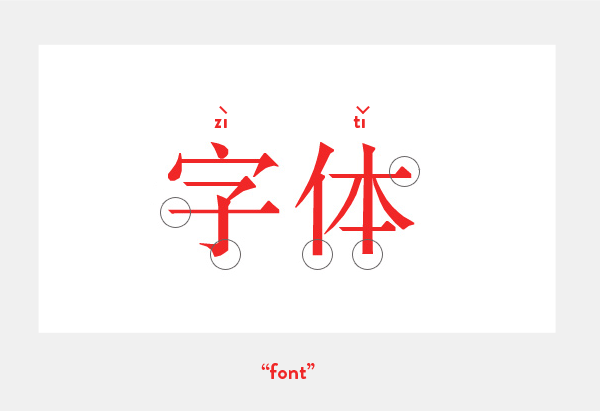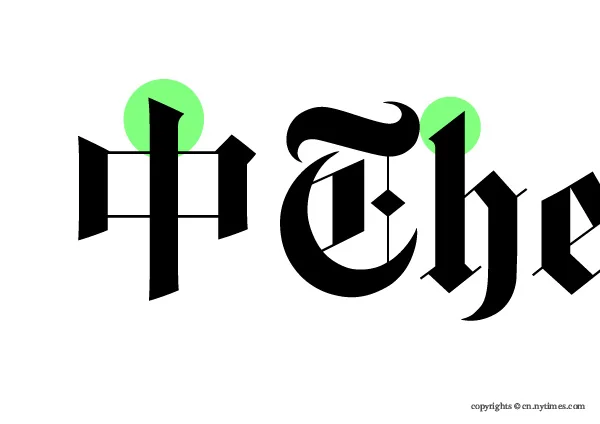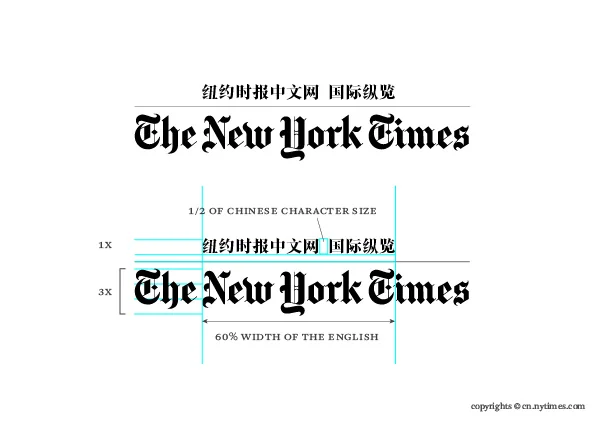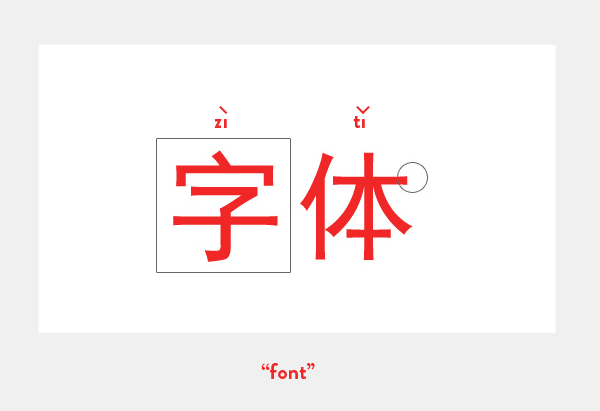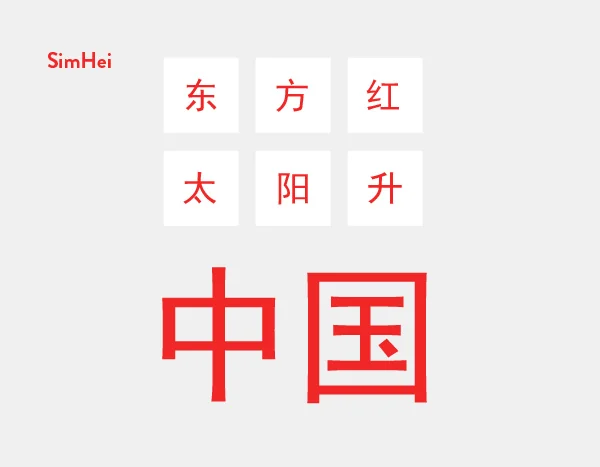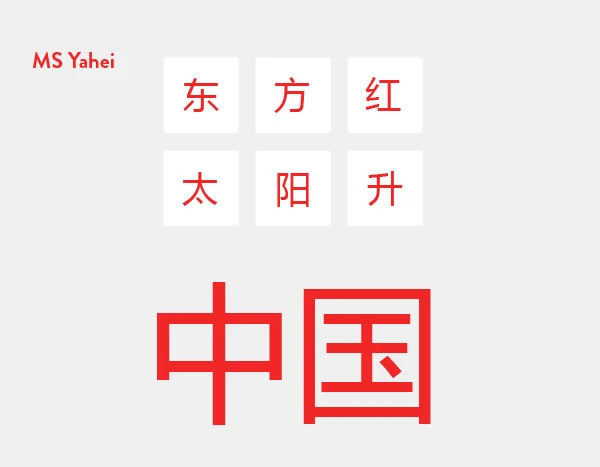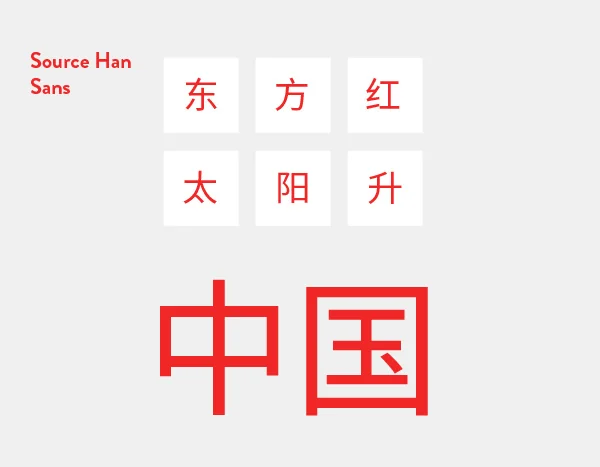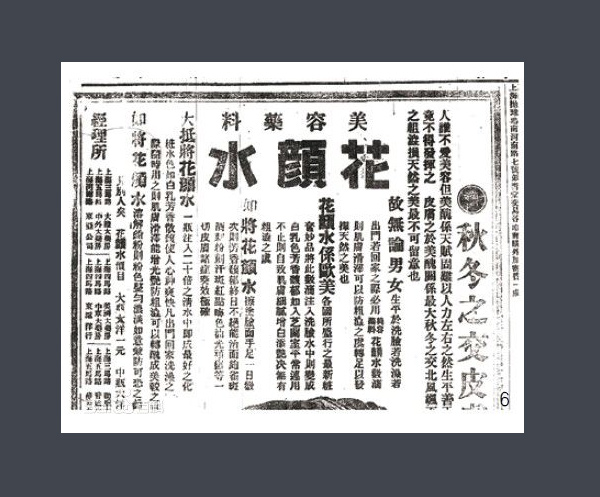
Curious about Chinese typography? Wondering how many glyphs are there in a Chinese font type set? We’ll answer all these questions and more as we dive into East Asian and Chinese typography.
How many glyphs are there in a Chinese font type set? Does Chinese have “serifs” and “sans-serifs”? What is the Helvetica of the Chinese font world? We’ll answer all these questions and more as we cannonball into the deep end of East Asian and Chinese typography.
From a practical perspective, I’m getting an increasing number of calls from web and graphic designers who are being asked to produce Chinese-language versions of printed and digital materials. That might be you someday, no?
From a learner’s perspective, Chinese typography is just flat-out cool. As far as anyone knows, Chinese is the world’s oldest in-use writing system, and most of the major East Asian written languages are kind of like GitHub forks of written Chinese. Many of those languages, though they’ve evolved into something unique and distinct, still include Chinese characters today.
Plus, Chinese is pretty. Who doesn’t like looking at pretty things?
Did you know there are two standard versions of written Chinese?
Long story short, after Chairman Mao and the Communists came into power in 1949, Mao decided that he could raise national literacy rates by decreasing the complexity of the language. So he rounded up some linguists and they got busy. Wikipedia tells us:
“The PRC issued its first round of official character simplifications in two documents, the first in 1956 and the second in 1964.”
The thing is, Mao wasn’t the boss of Hong Kong, Taiwan, or Macau at the time, so they never made the switch, instead keeping the original, traditional Chinese typography. There were also a bazillion Chinese immigrant communities and Chinatowns that had been established overseas before the new language was released; they also kept the traditional characters.
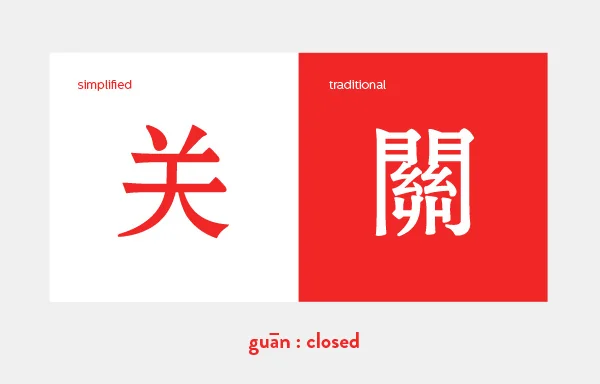
Where Simplified Chinese font type characters are used:
Where Traditional Chinese font type characters are used:
Con-fu-sing!
Think about what all that history means for font foundries: to release a pro Chinese typography font, they not only have to create a character set of at least around 20,000 characters, they have to do it twice: once for Simplified and once for Traditional. And that doesn’t even take multiple font weights (thicknesses) into account.
Oh, many pardons—did I not drop that bomb already? Despite simplification, professional simplified Chinese fonts must include a glyph count approximately 20,000 strong, sometimes a few thousand more, sometimes a few thousand less. That includes the English alphabet, English and Chinese punctuation, and a big ol’ dictionary of Chinese characters. Traditional character sets have been known to run to 30,000 or higher. Non-professional fonts will sometimes squeak by with as few as 2,000 of the most common glyphs, but these shouldn’t be used for base body text, as you’ll inevitably run into a character you need but don’t have.
It doesn’t. China’s not on the @font-face boat at all—they’re still stuck with their original browser standard fonts and PNG/SVG for special type. Because Chinese font files contain so many glyphs, they usually run from about 3–7 MB per font weight, a size which defies web embedding (and which partially explains why Flash maintained its popularity here for so long). Only recently have some extremely experimental technologies emerged for Chinese non-standard webfont rendering, like Youziku and Justfont.
Western language fonts are classified under a few major headings and a pantheon of minor ones. We have serif and sans-serif. We have blackletter, script, display, slab, monospace, and a handful of other words that indicate a general typographic style. Though you can’t really place every single font into either a serif or sans-serif category (some fonts, like hand-drawn scripts, don’t really fit under either) these two words are probably the most commonly used font distinctions, bandied about even outside of the design industry.
In this sense, popular Chinese fonts classifications are very similar to our own. In Chinese, the two most commonly used classifications are song ti (sounds like sawng tee), which you could think of as the Chinese serif, and hei ti (sounds like hey tee), similar to a sans-serif. The word “ti” 体 essentially means “font”, so you can expect to see that word at the end of many font names.
If one type of font had to be chosen to represent Chinese typography, it would be the font songti. Early songti scripts were in use as far back as the Song Dynasty (960-1279 A.D.), when Chinese woodblock printing reached its golden age. Due to the grain of the wood in the woodblocks, which ran horizontally, horizontal lines were easy to produce and could be thinner, but vertical lines, which ran counter to the wood grain, were prone to breakage during carving, and had to be thicker.